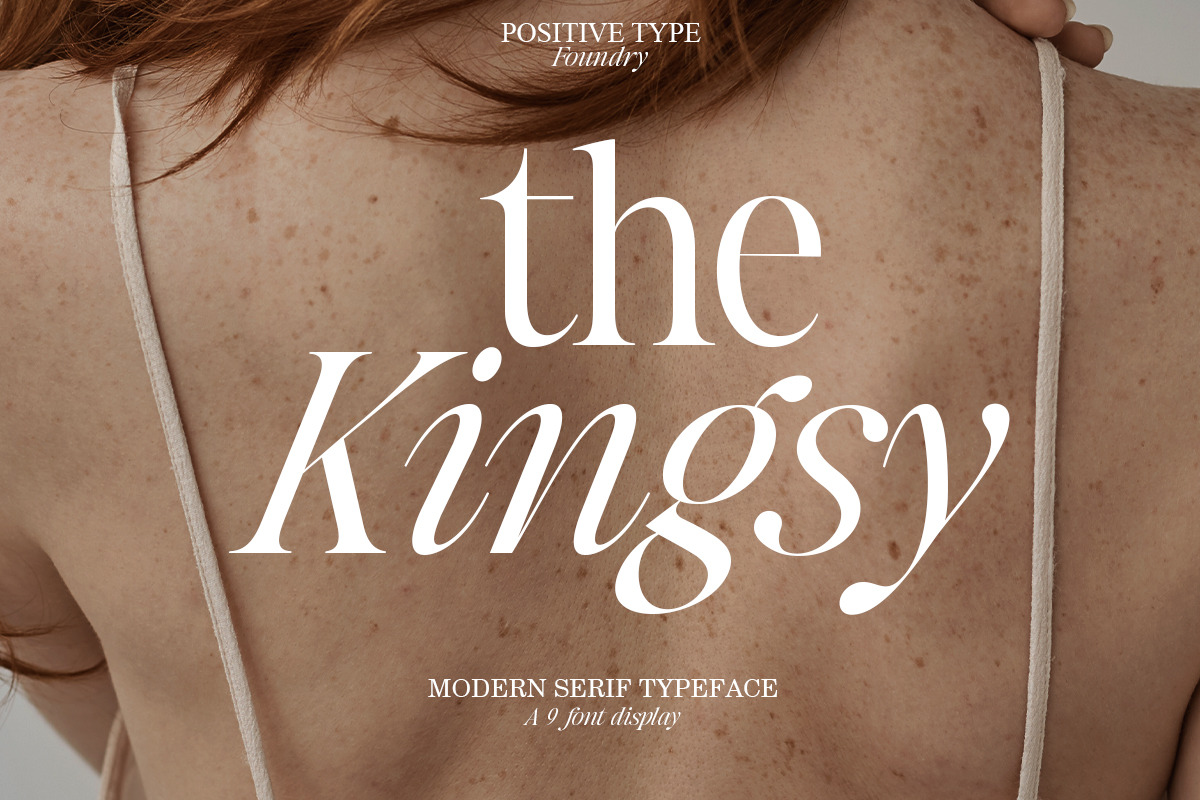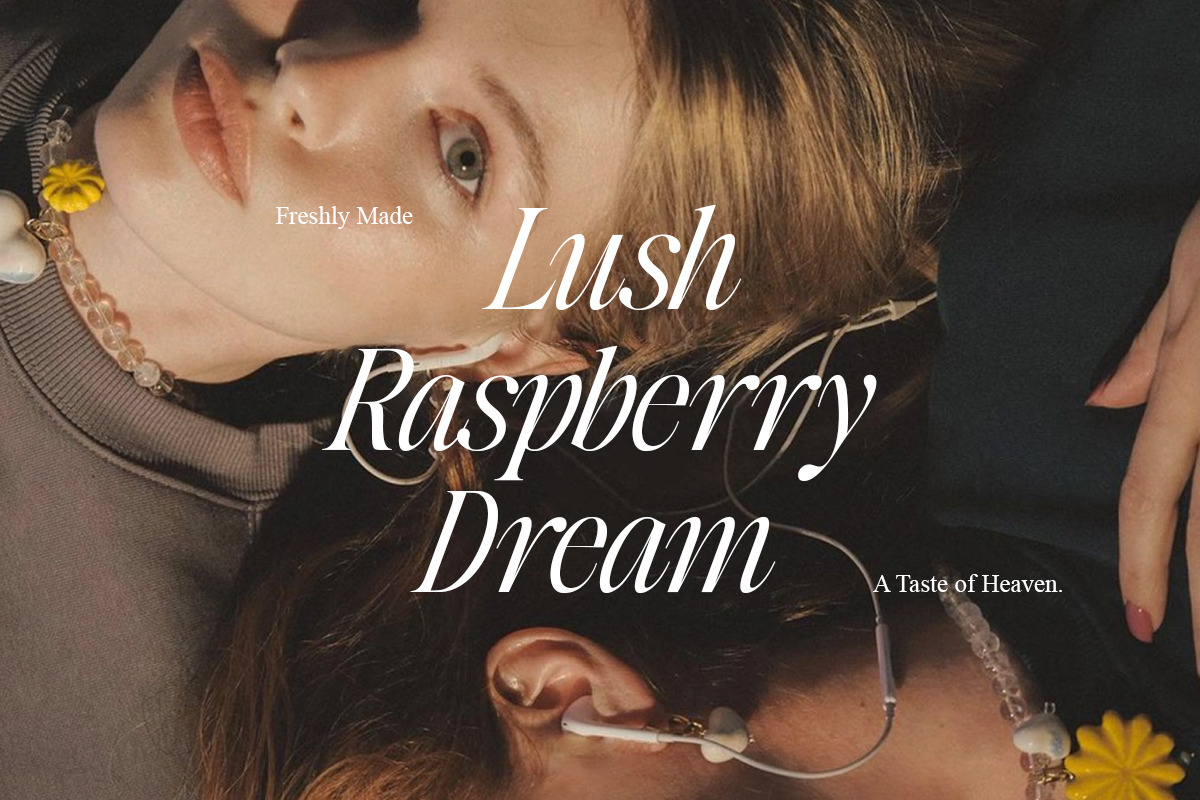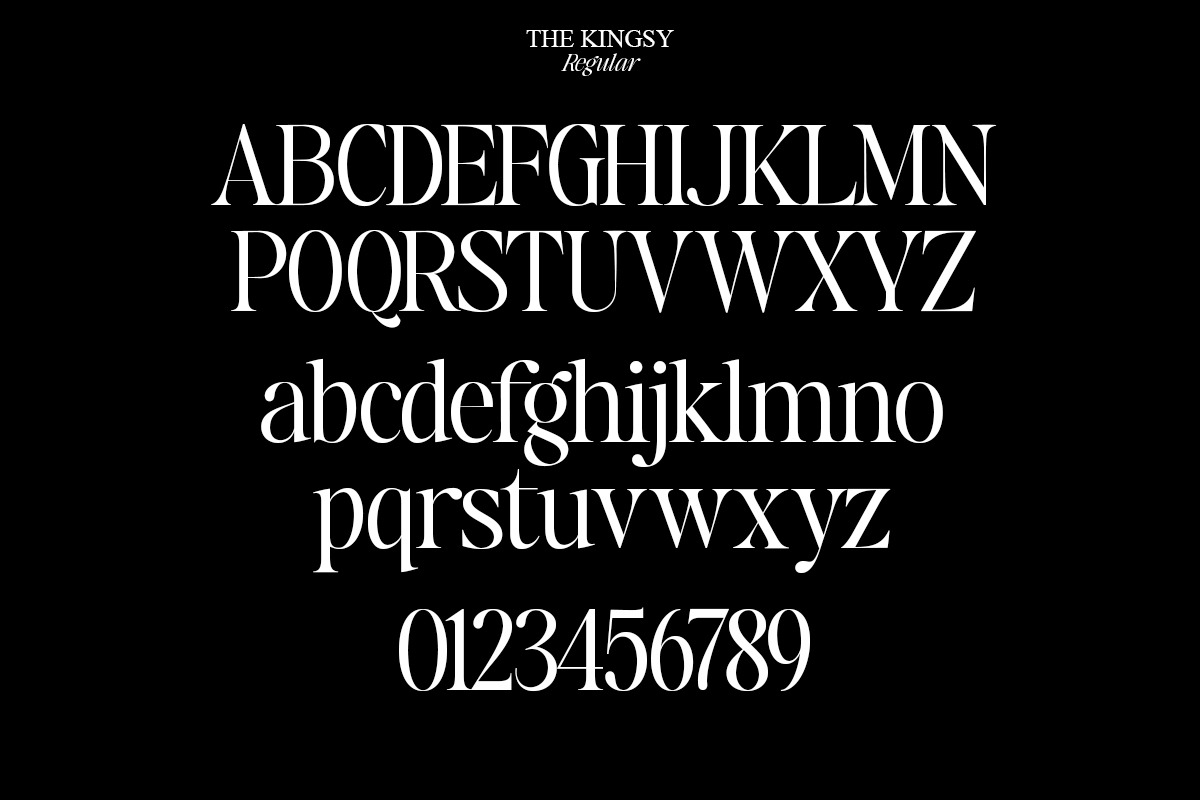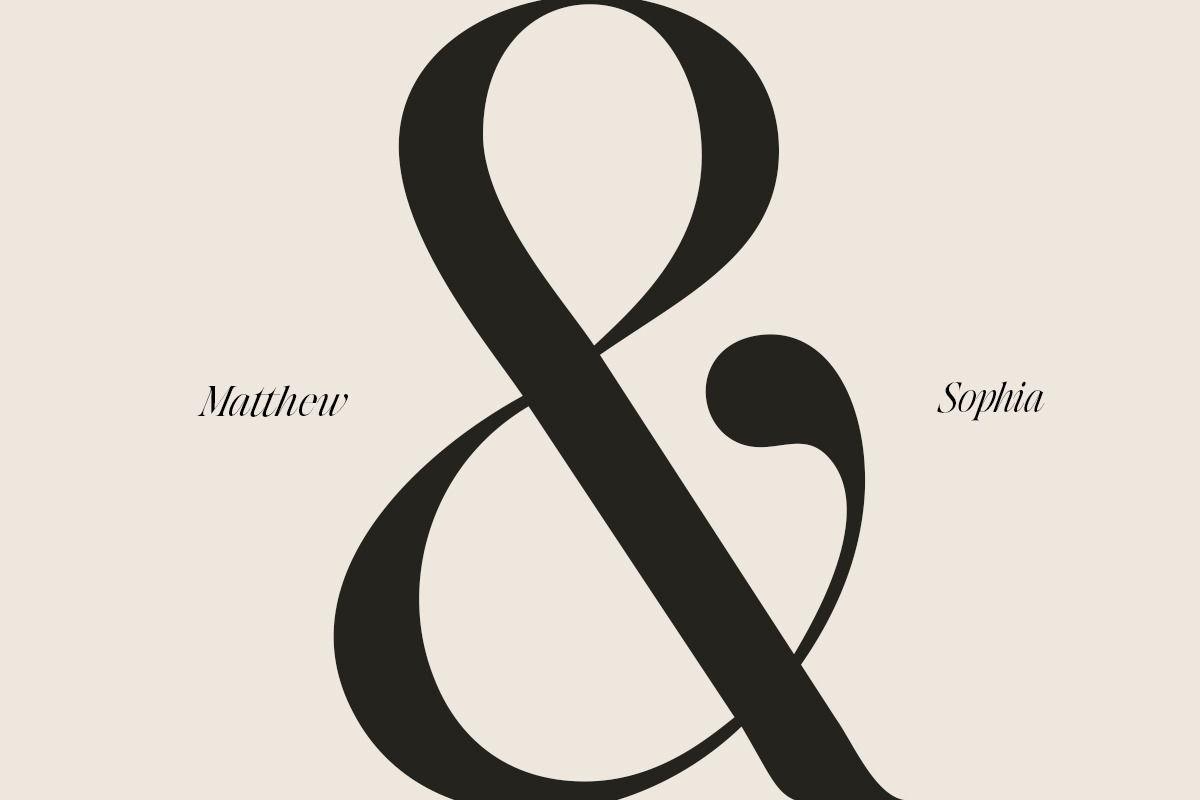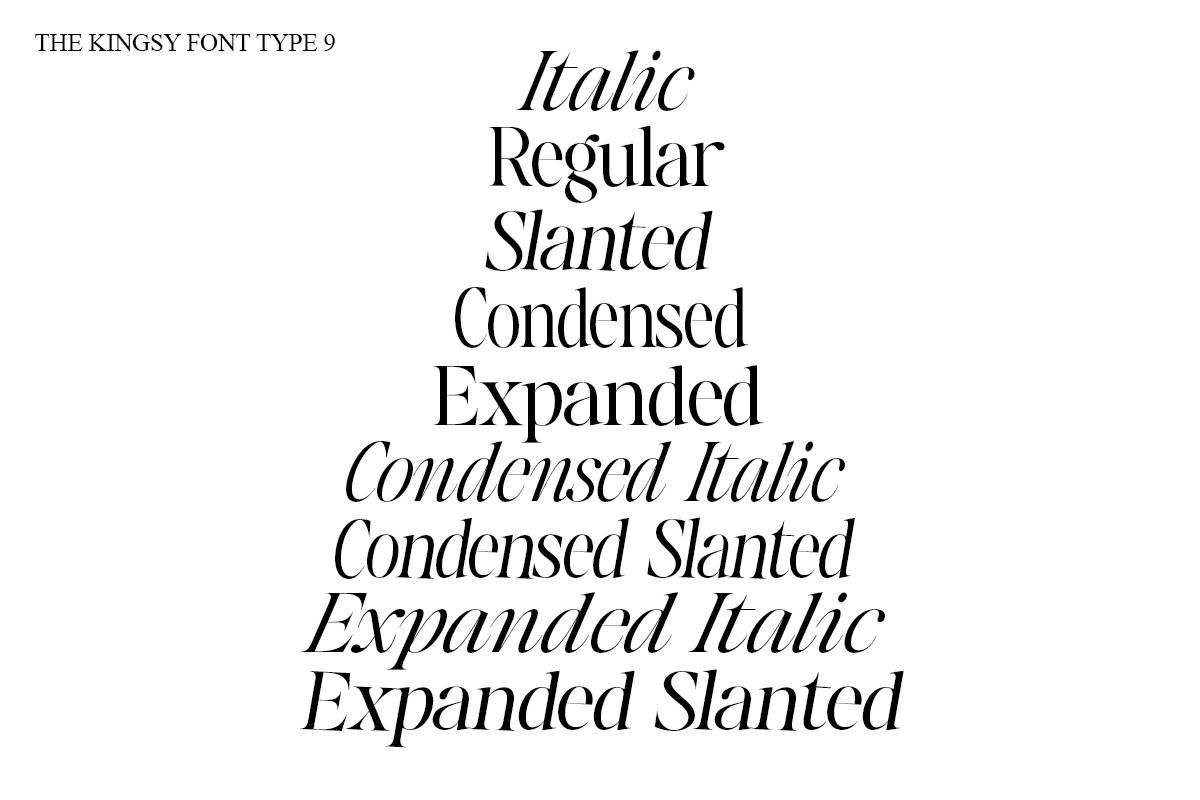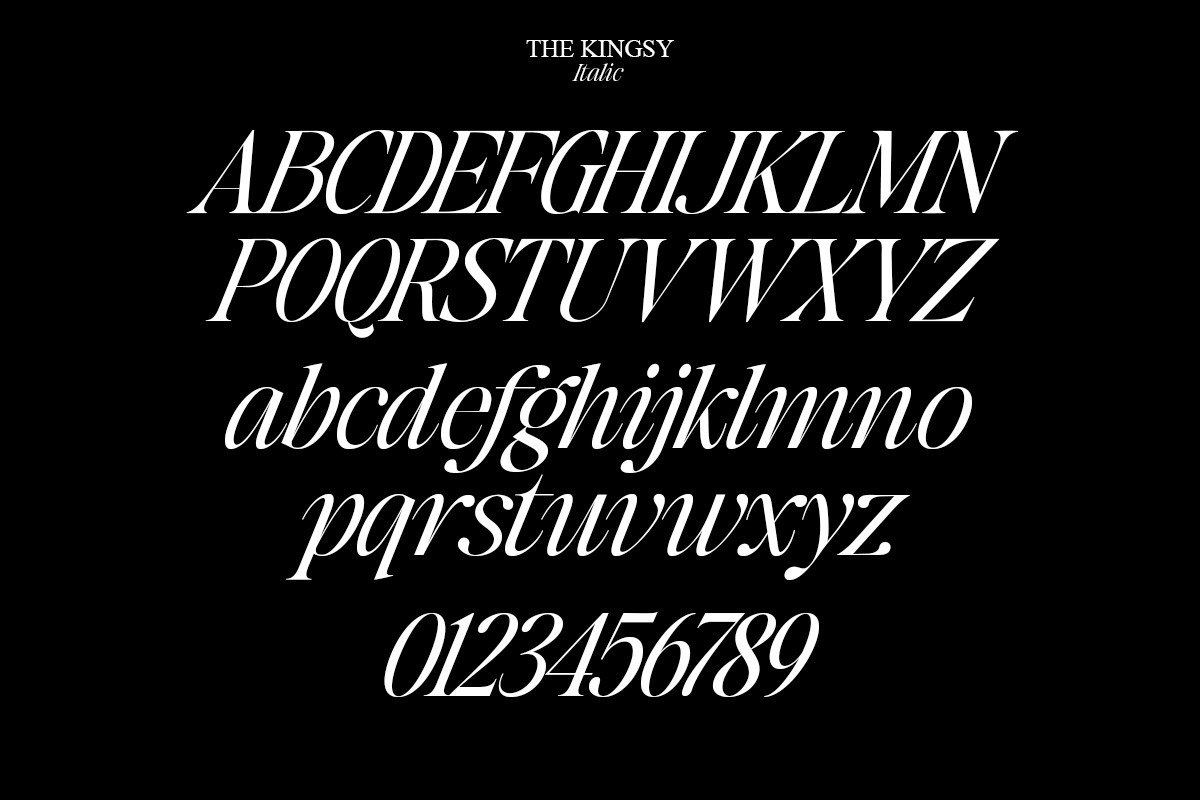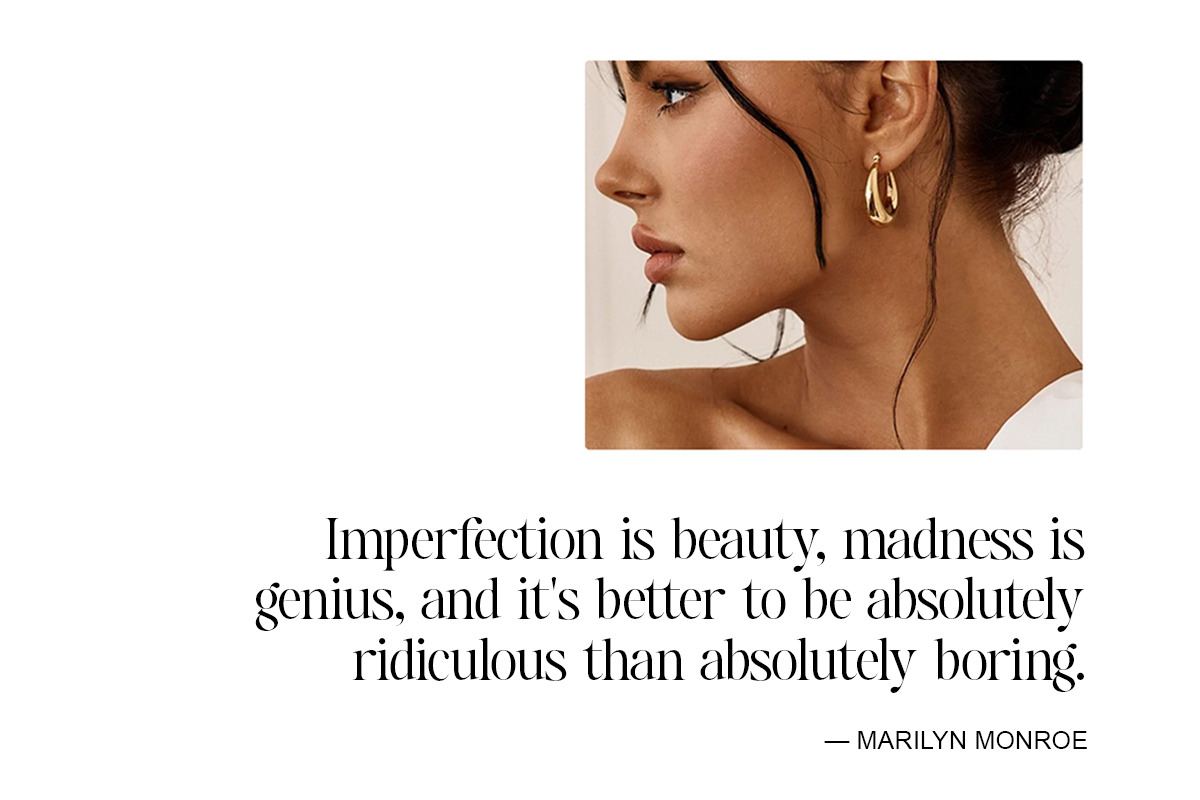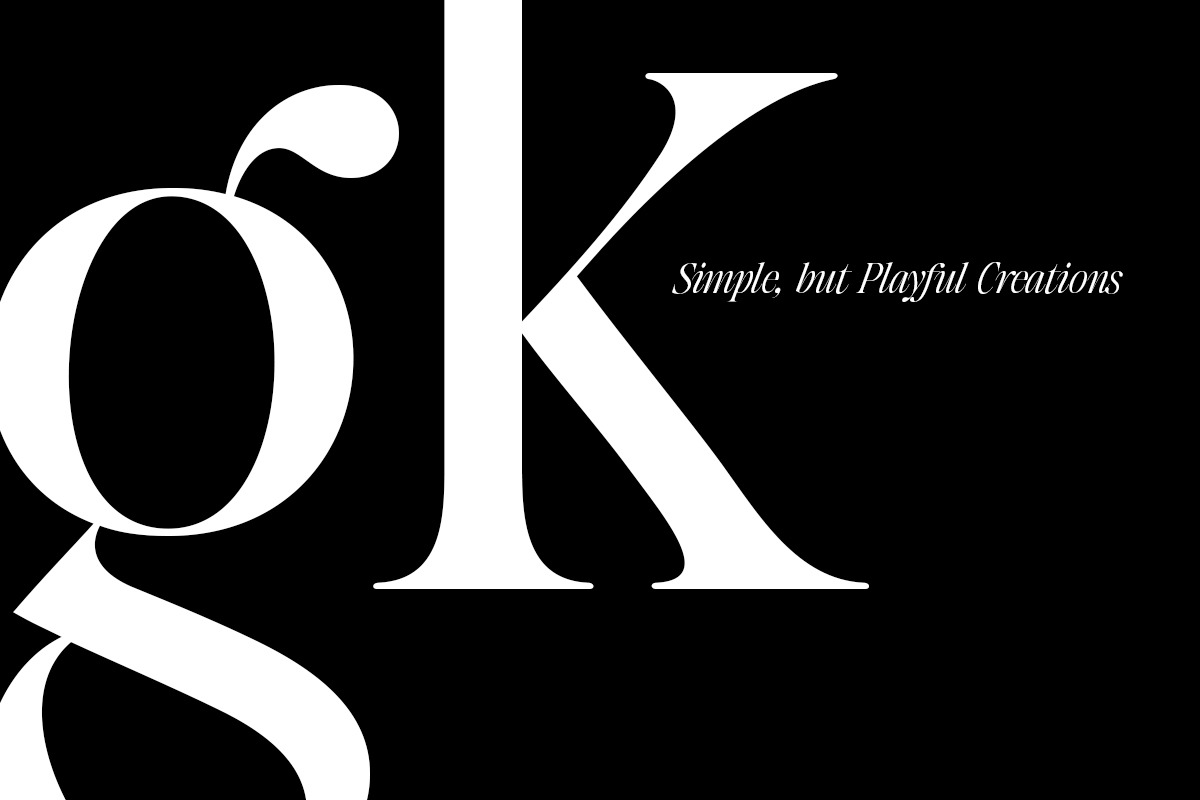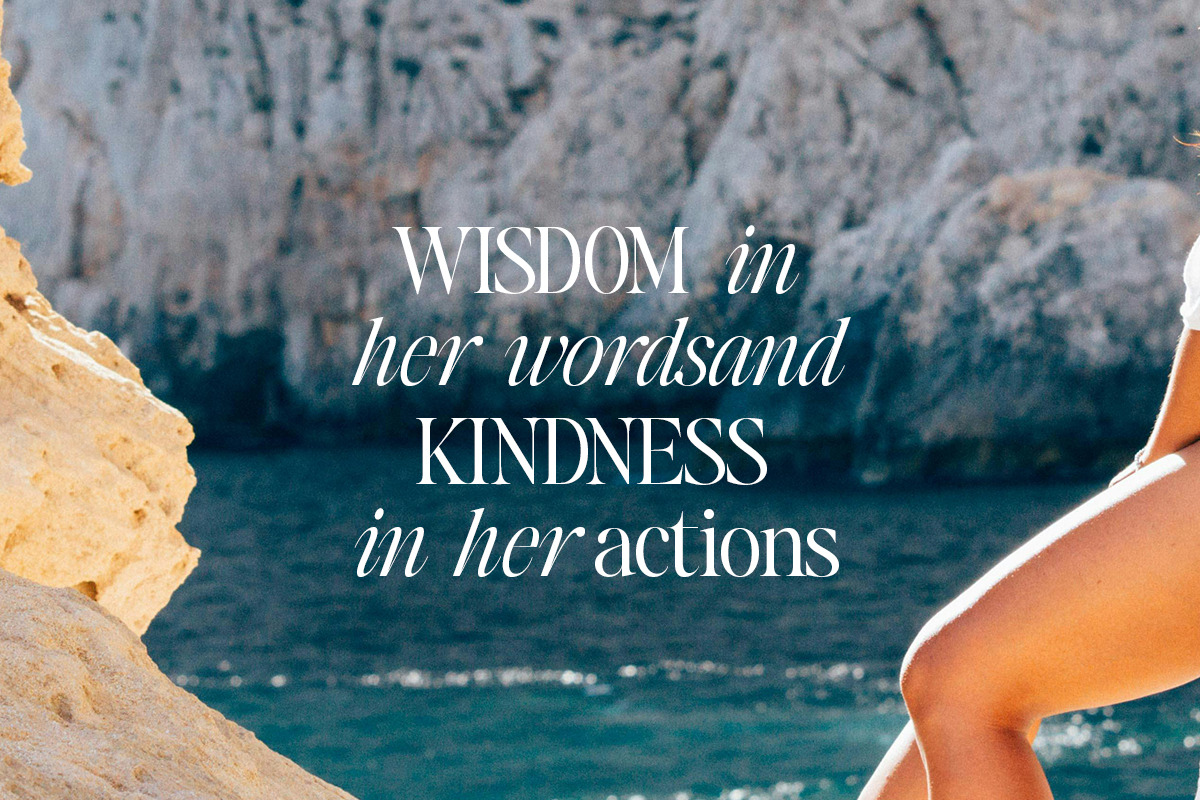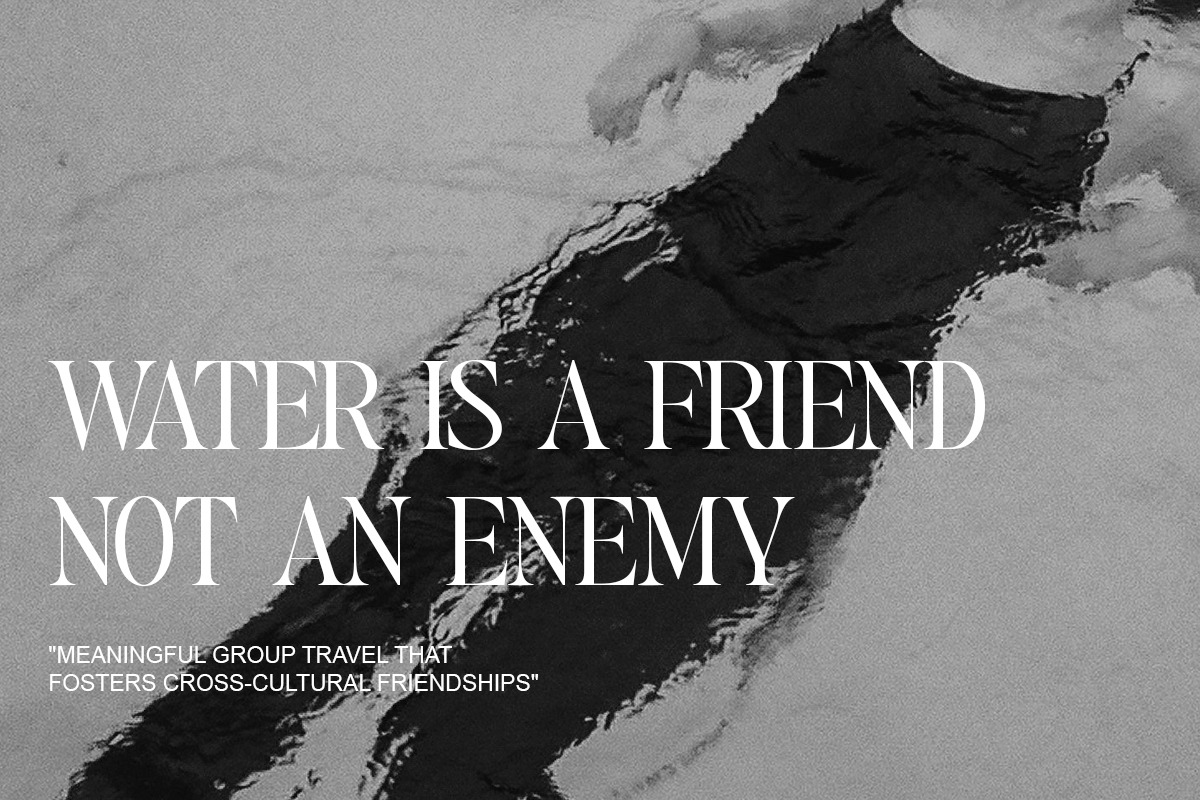
The Kingsy Serif (09 fonts)
The Kingsy, a sophisticated serif typeface designed to embellish your projects with classic elegance and modern versatility. The Kingsy comes in nine styles: Regular, Italic, Condensed, Condensed Italic, Expanded, Expanded Italic, Slanted, Condensed Slanted, Expanded Slanted,
Perfect for branding, logos, editorial designs, and invitations, The Kingsy offers clean lines and a timeless aesthetic.
OpenType Features: Kerning, Ligatures, Style Sets
Character Sets: Uppercase, numbers, punctuation, ligatures, multilingual support